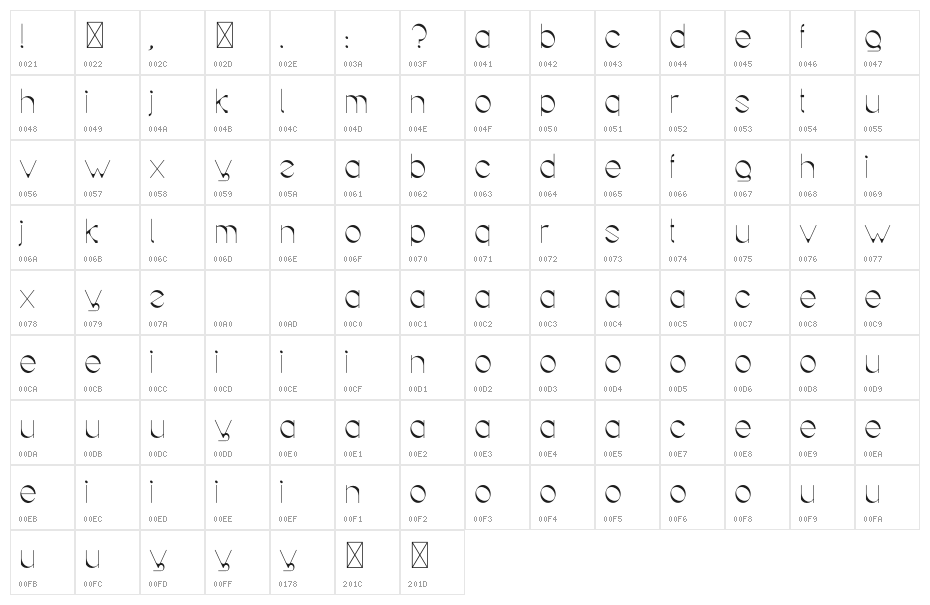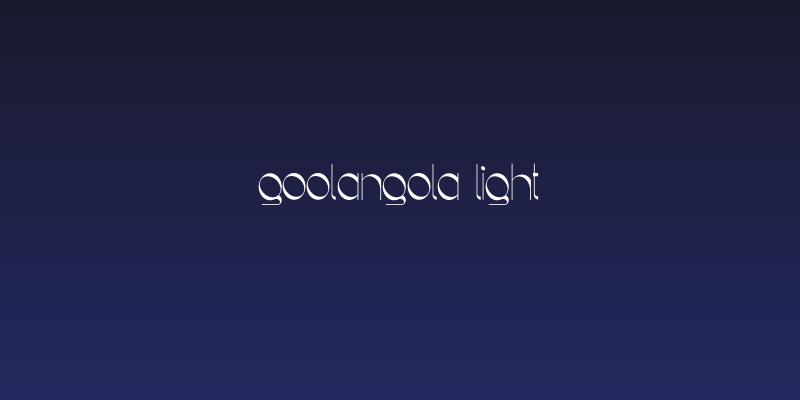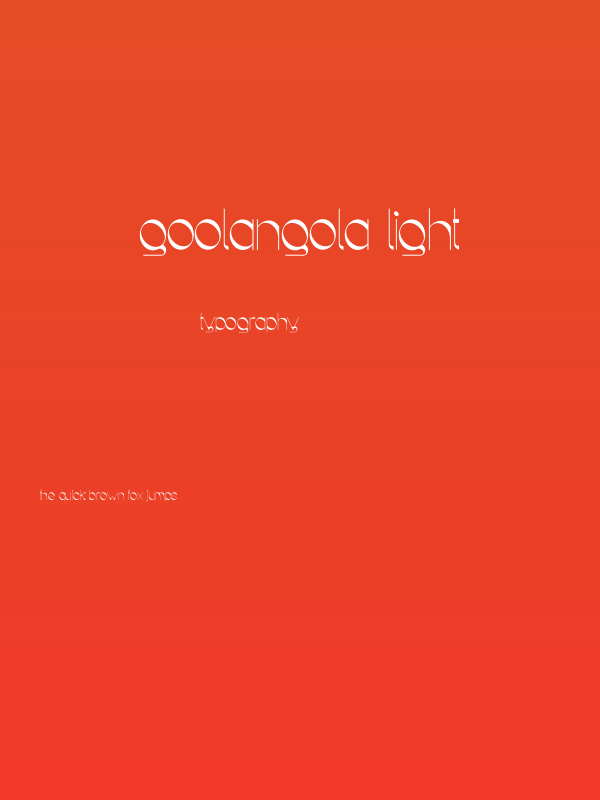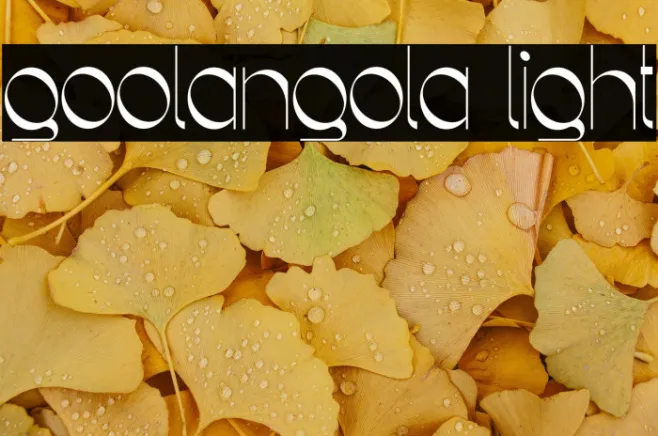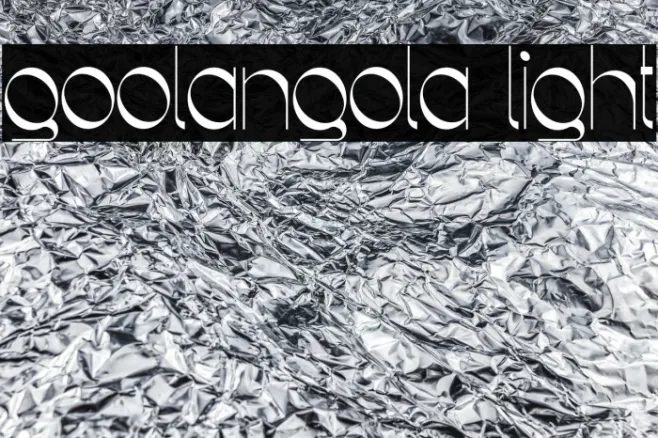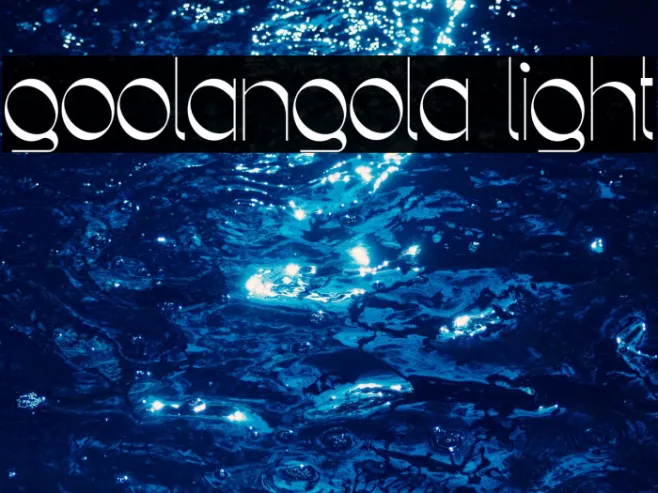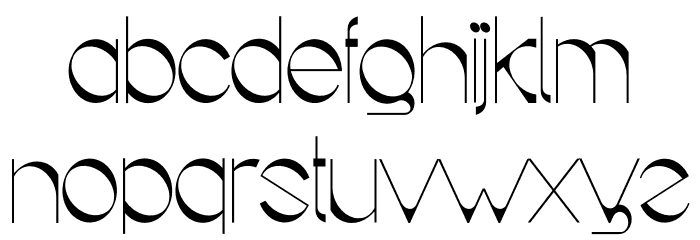
Goolangola Light Font
Goolangola Light Description
This font features a sleek, modern design with a geometric flair. The characters are constructed with clean lines and sharp angles, giving it a futuristic and minimalist appearance. The uppercase and lowercase letters maintain a consistent height, contributing to a uniform look. The font's unique style is evident in its use of thin strokes and open spaces, creating a sense of elegance and sophistication. The special characters and numbers follow the same design principles, ensuring a cohesive visual language. This font is ideal for projects that require a contemporary and stylish aesthetic.